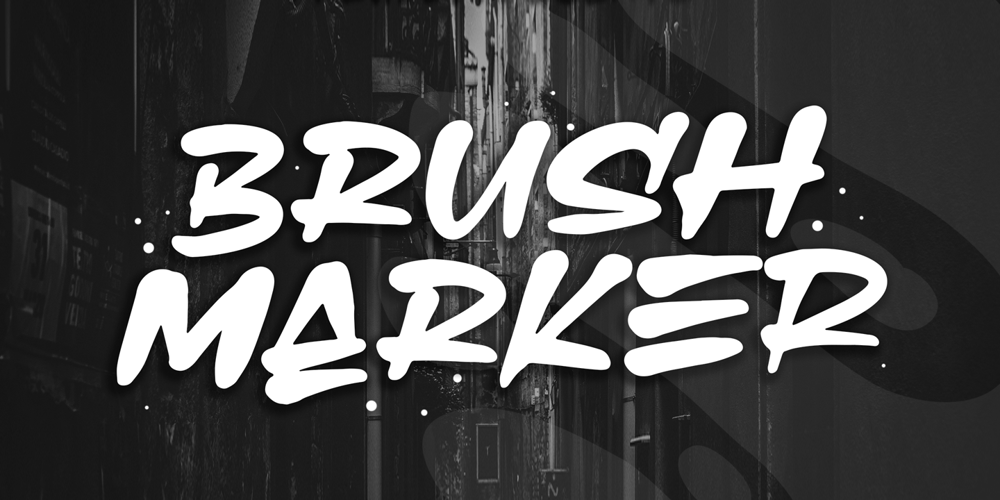
Brush Marker
Brush Marker font
Brush Marker Font Family was designed by Bangkit Tri Setiadi and published by Blankids. Brush Marker contains 1 styles and family package options. “Brush Marker” is a font that embodies the original strokes of a marker, presented in a unique and captivating design. This font is crafted to maintain all letters in uppercase (all caps), delivering a strong and assertive yet expressive feel.Directly inspired by marker strokes, each letter in “Brush Marker” carries a distinctive touch and organic character. This font is ideal for logotypes, striking displays, memorable branding, and corporate design needs.The combination of uppercase and lowercase letters in this font offers broad flexibility in design exploration. You can create intriguing contrasts between the bold uppercase parts and the softer lowercase elements, achieving a visually harmonious result.